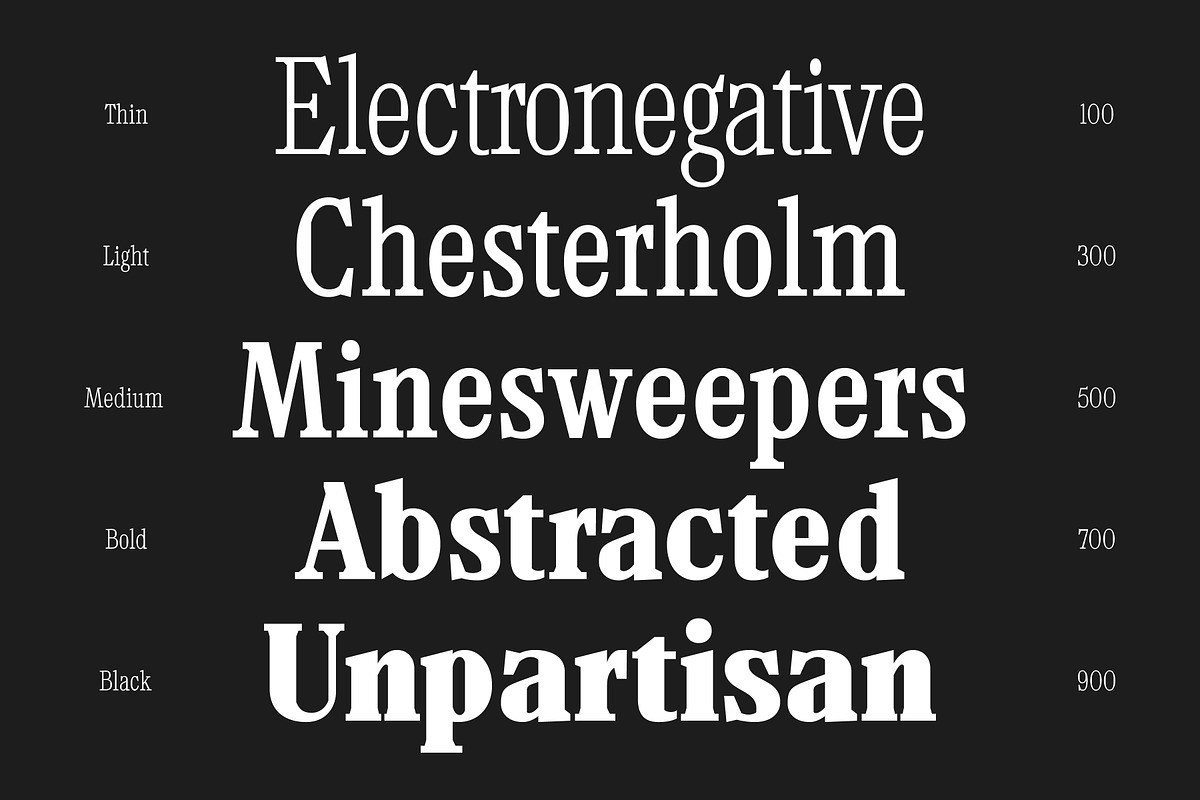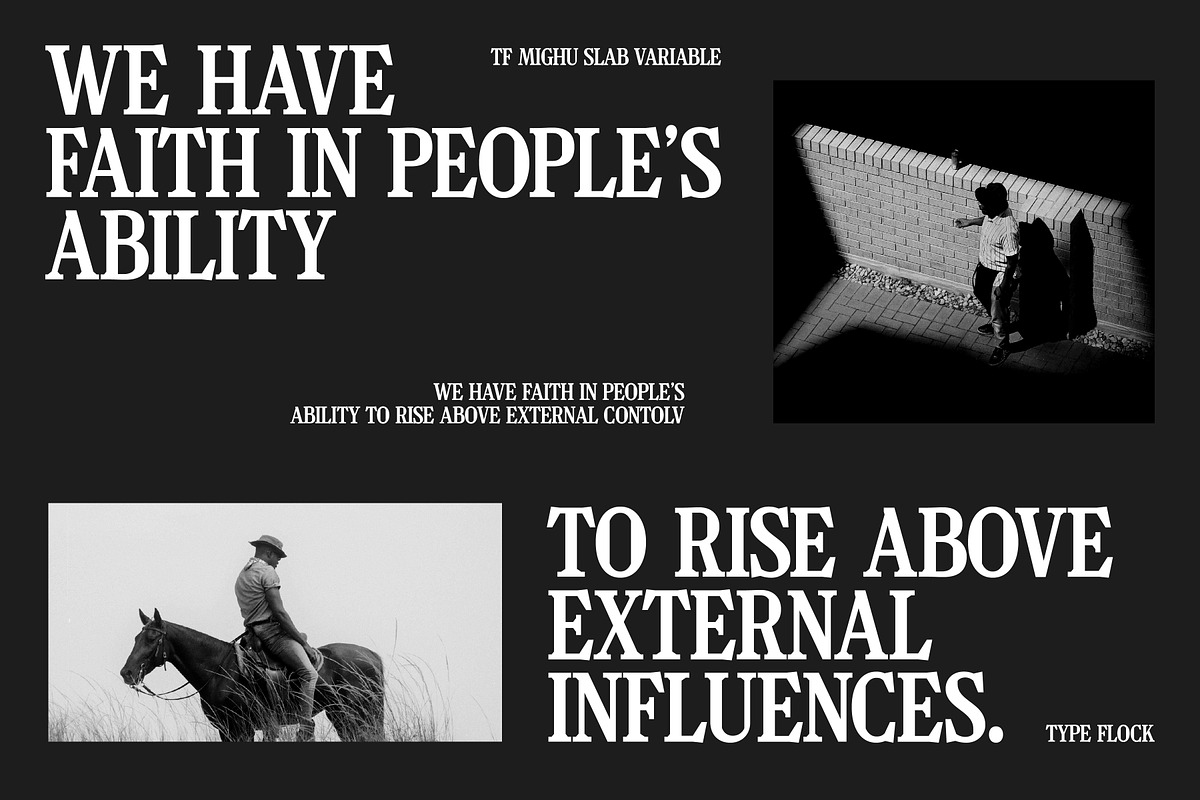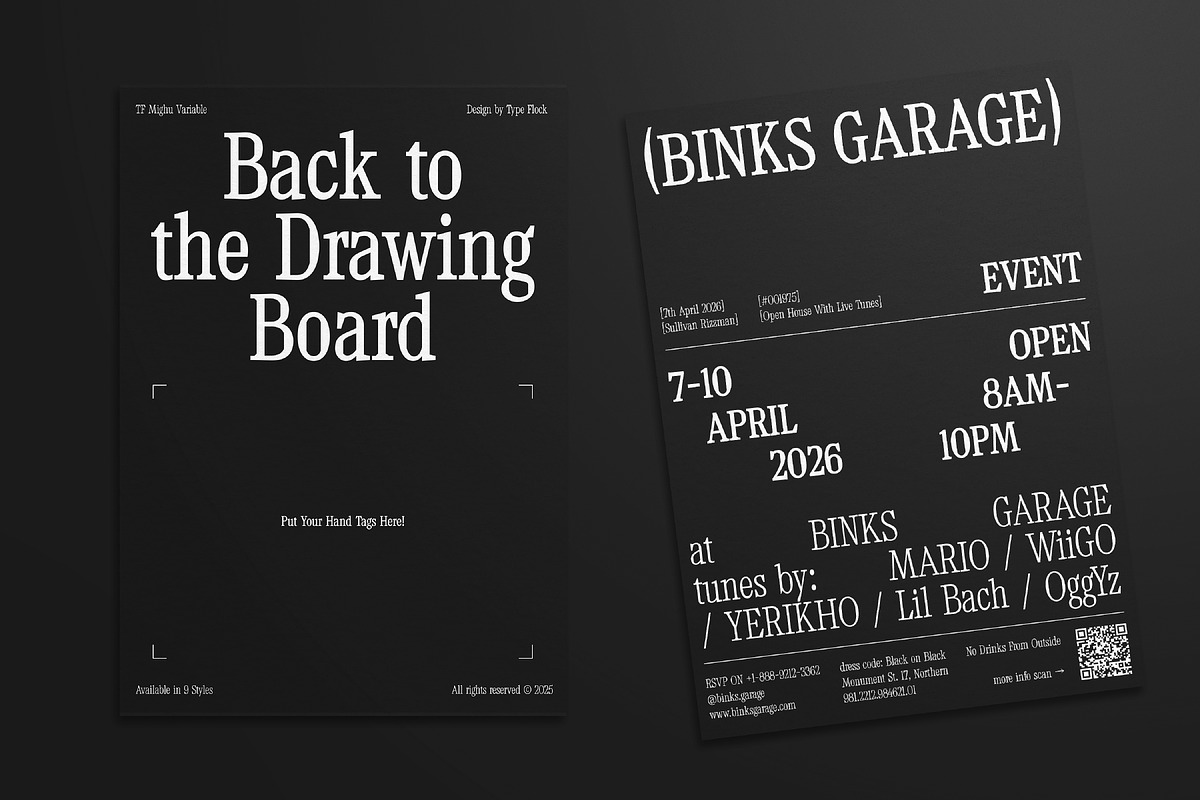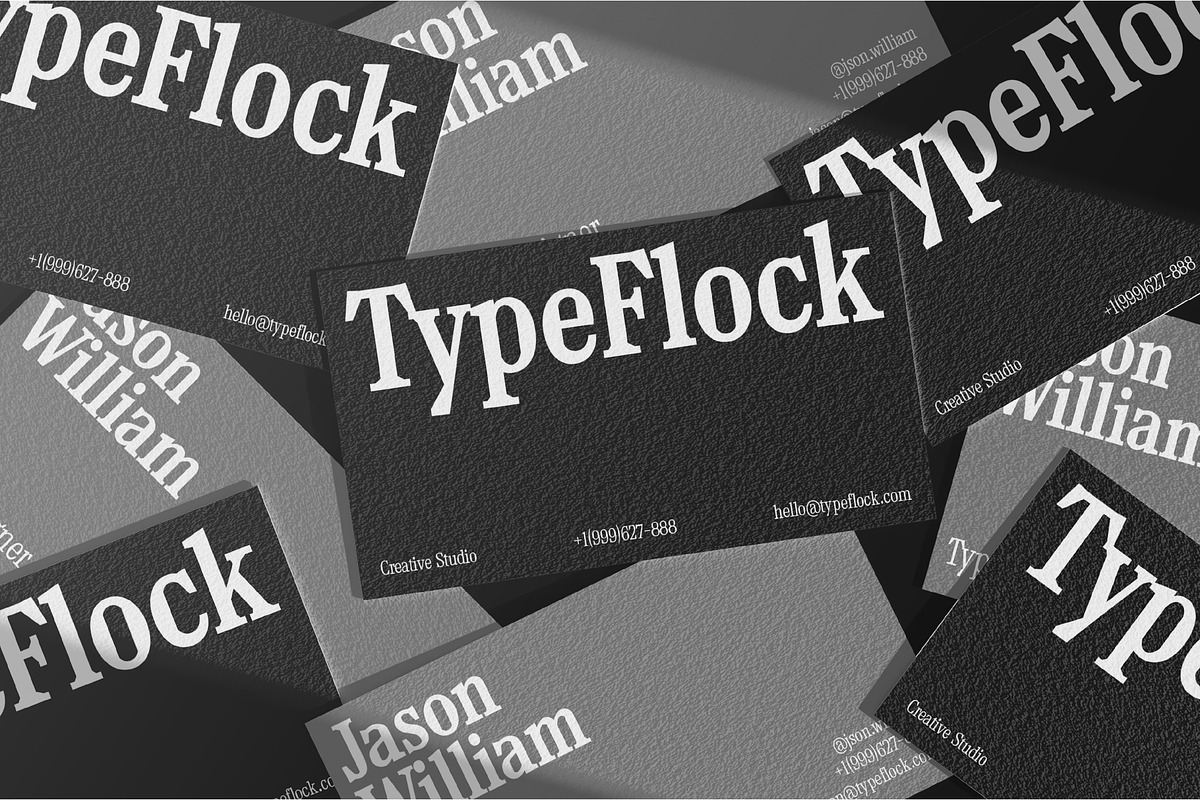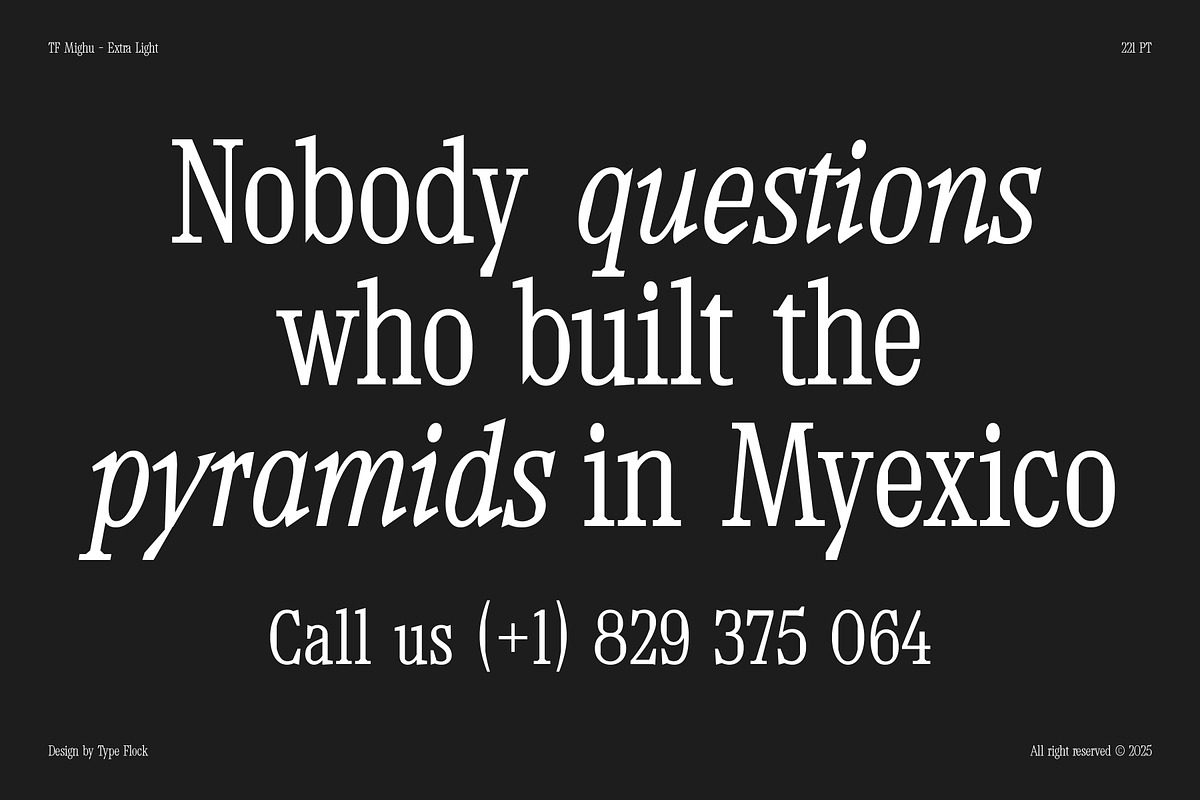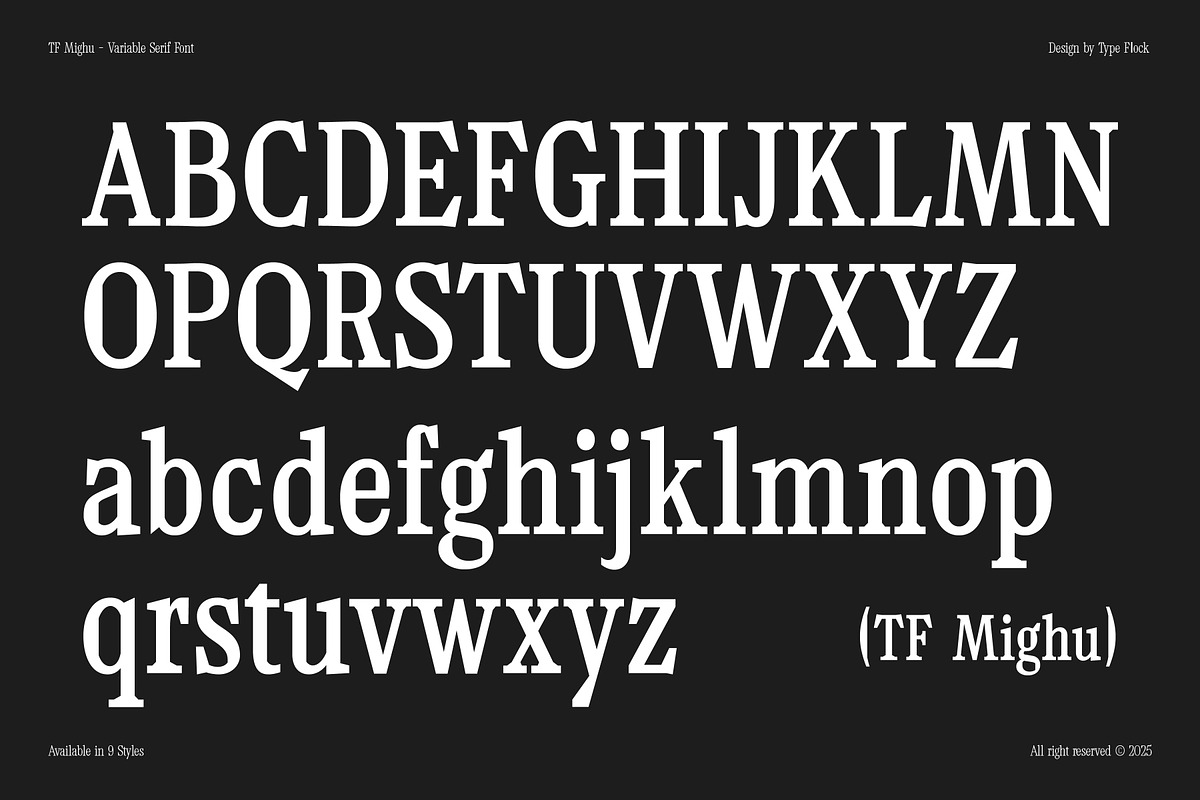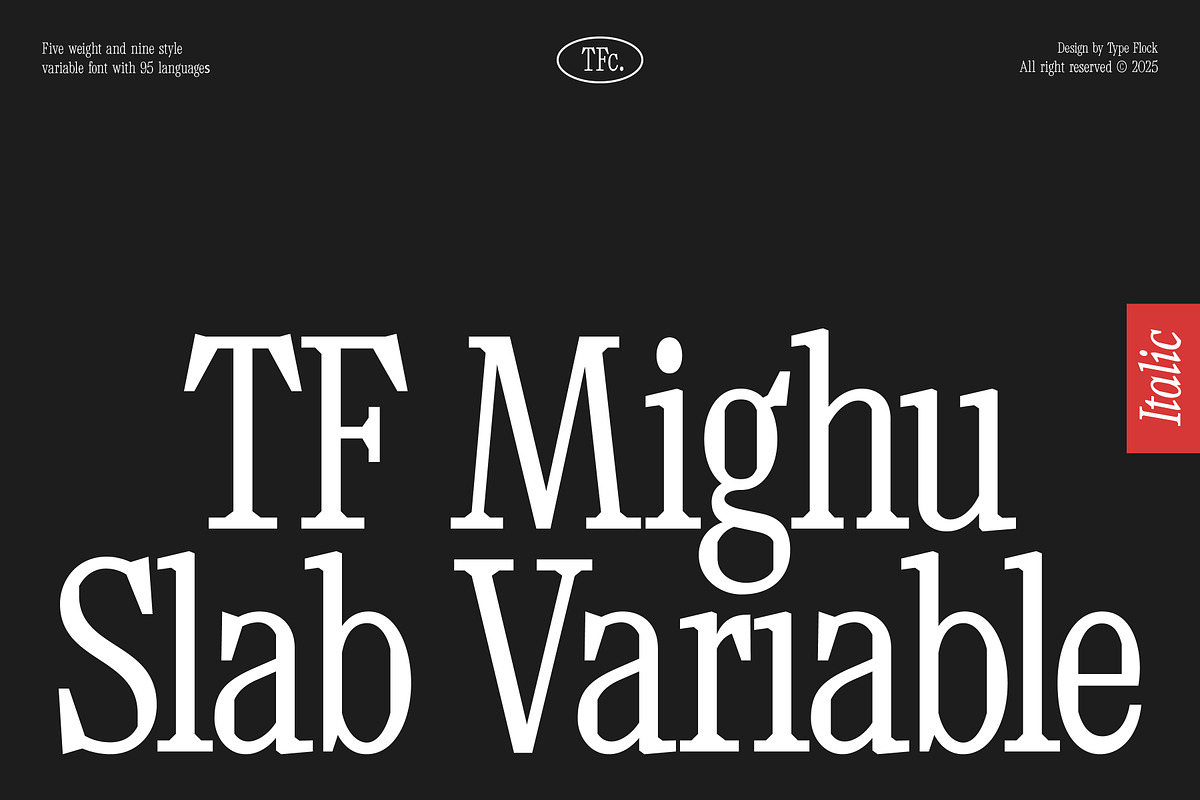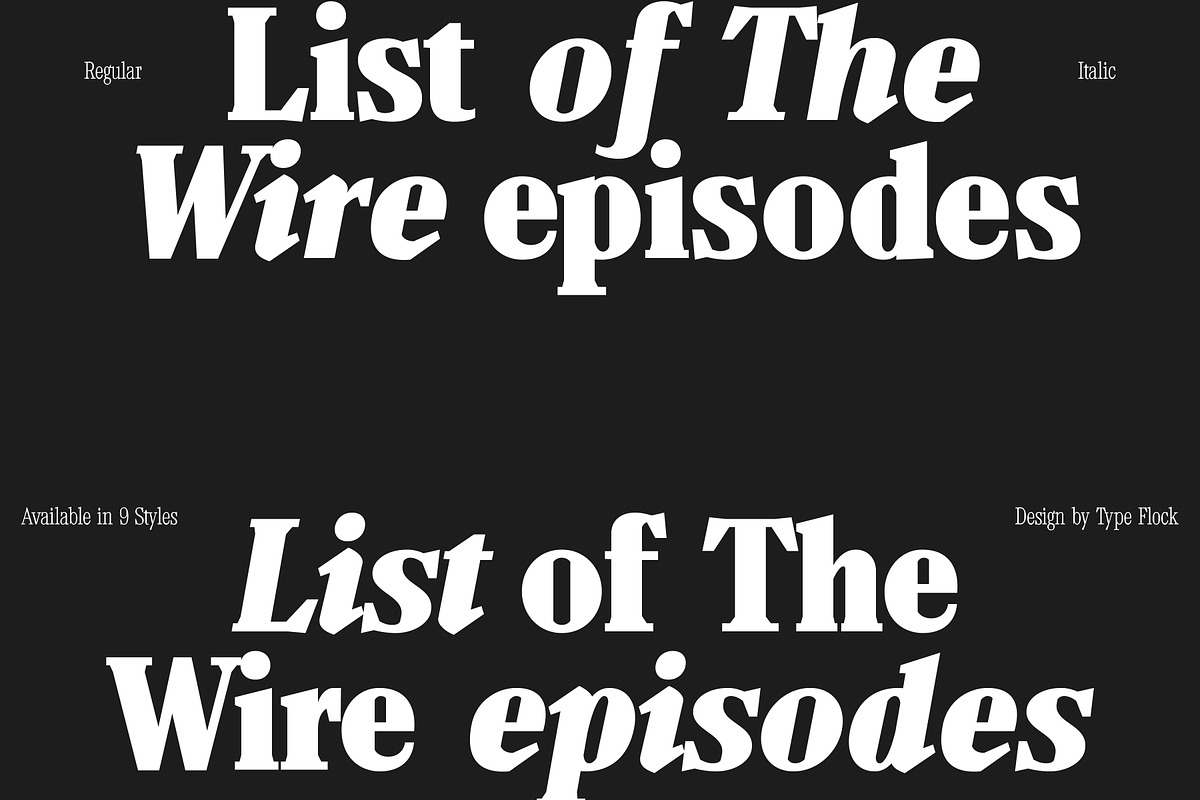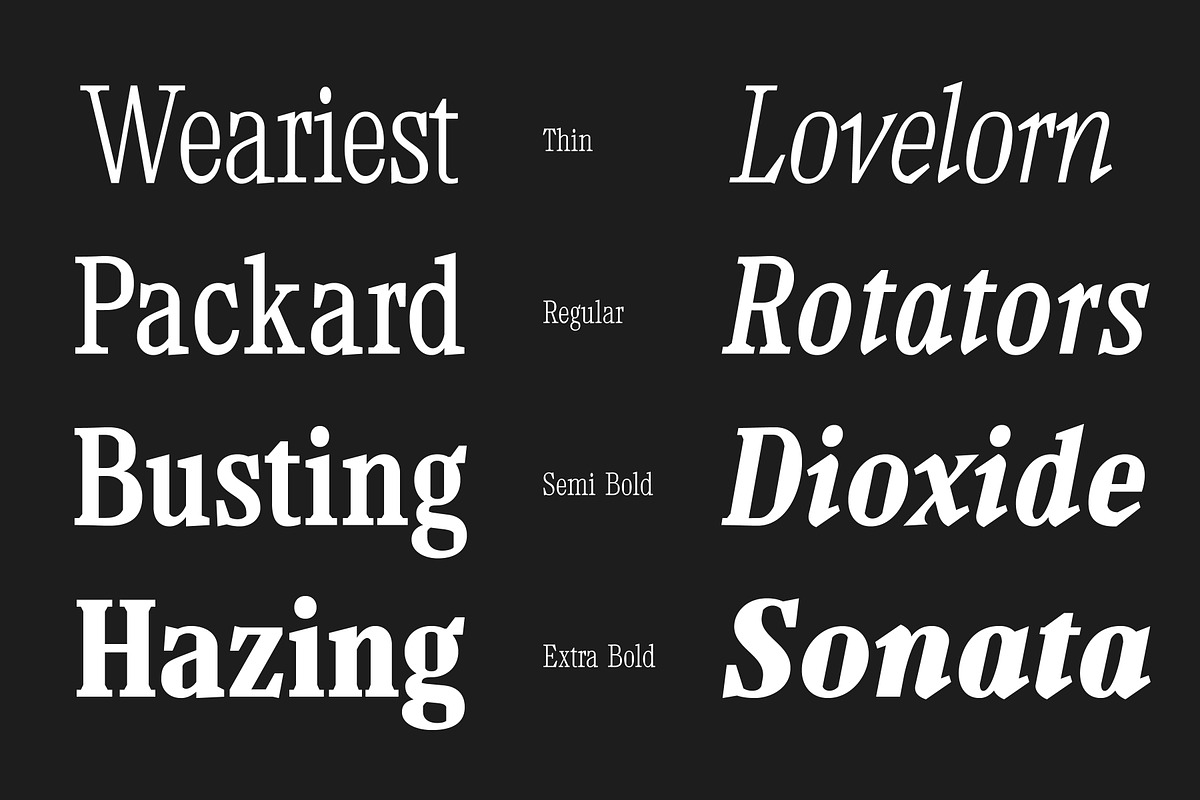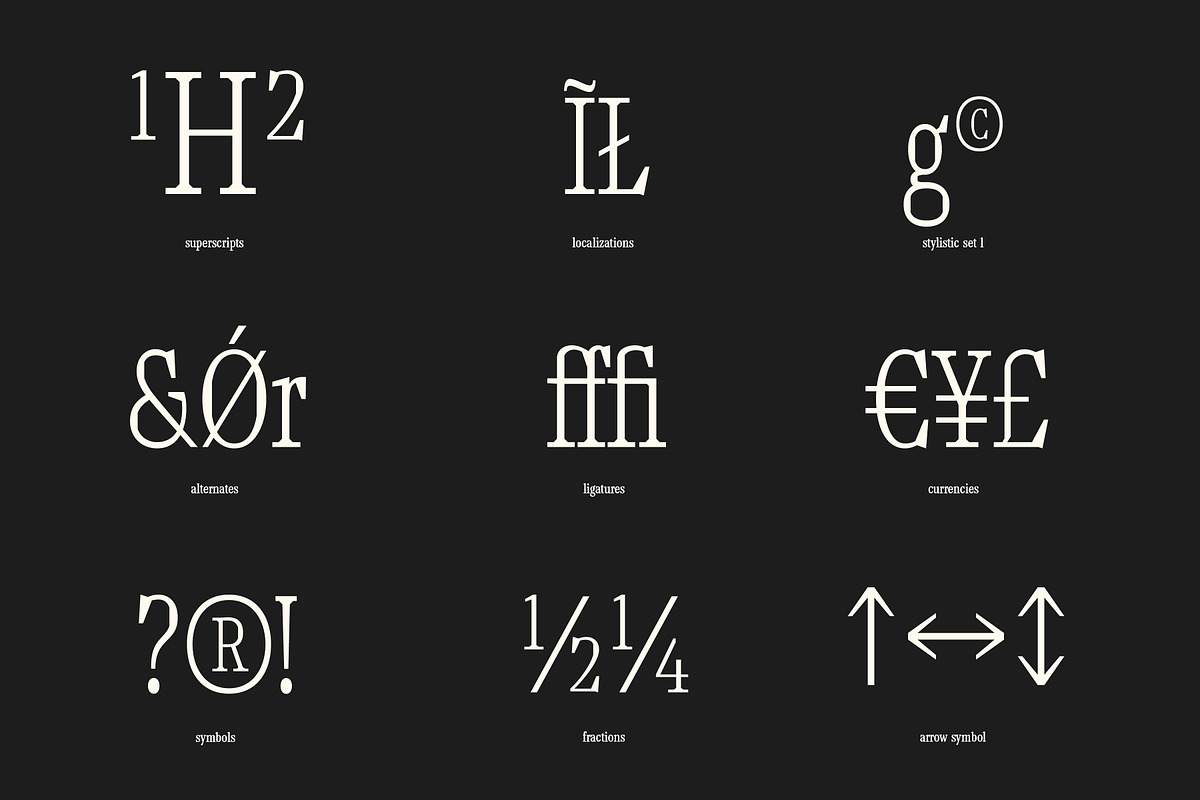
TF Mighu - Modern Slab Serif
TF Mighu: A Modern Slab Serif for Confident Typography
TF Mighu is a slab serif typeface built for designers who need presence without noise. With firm slab serifs, disciplined proportions, and quietly refined details, it reads as confident and approachable at once. TF Mighu sets a steady rhythm on the page—stable stems and clear counters keep headlines crisp, while the overall construction stays legible in longer runs of text. For American-based graphic designers and creative directors, it offers a direct way to add authority to branding systems, editorial spreads, packaging, and UI without resorting to decorative excess.
Rooted in classic slab serif conventions but drawn for contemporary screens, TF Mighu behaves like a practical workhorse. Wide shoulders and decisive terminals give it weight and structure, yet the design avoids clumsiness; spacing and proportions feel tuned for modern layout demands, from tight columns to responsive interfaces. In dense editorial settings, it holds its line with calm clarity. At display sizes, it keeps its edges and personality, making it useful for posters, identity marks, and typographic compositions that need a strong focal point. TF Mighu supports a flexible workflow by letting teams keep a consistent voice across a project while adjusting emphasis as the hierarchy changes.
Multiple weights and styles for cohesive typographic systems
Strong slab-serif construction with refined detailing
Clear performance in display, editorial, and interface contexts
Balanced proportions designed for readability and impact
Use TF Mighu as a slab serif anchor in systems that must travel across media—print, packaging, and digital—while staying steady, contemporary, and distinctly graphic. TF Mighu works particularly well when the brief calls for structure, clarity, and an unmistakable sense of direction.